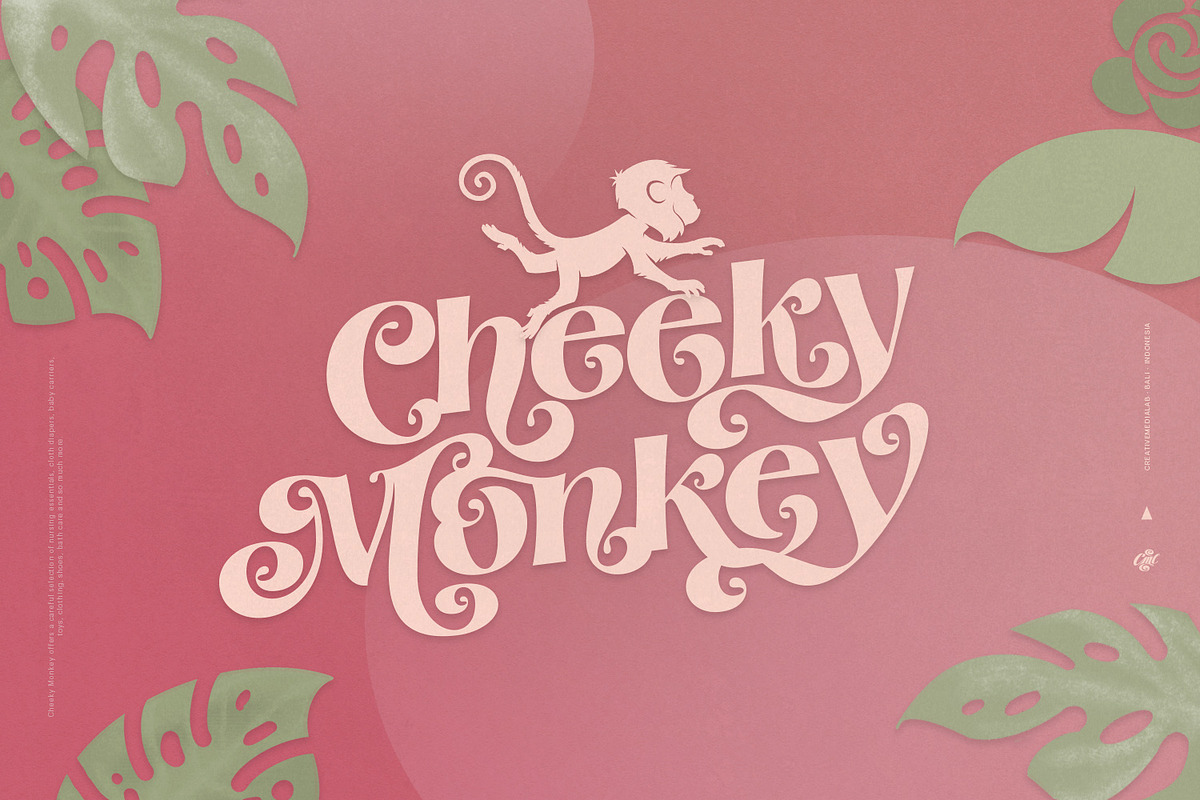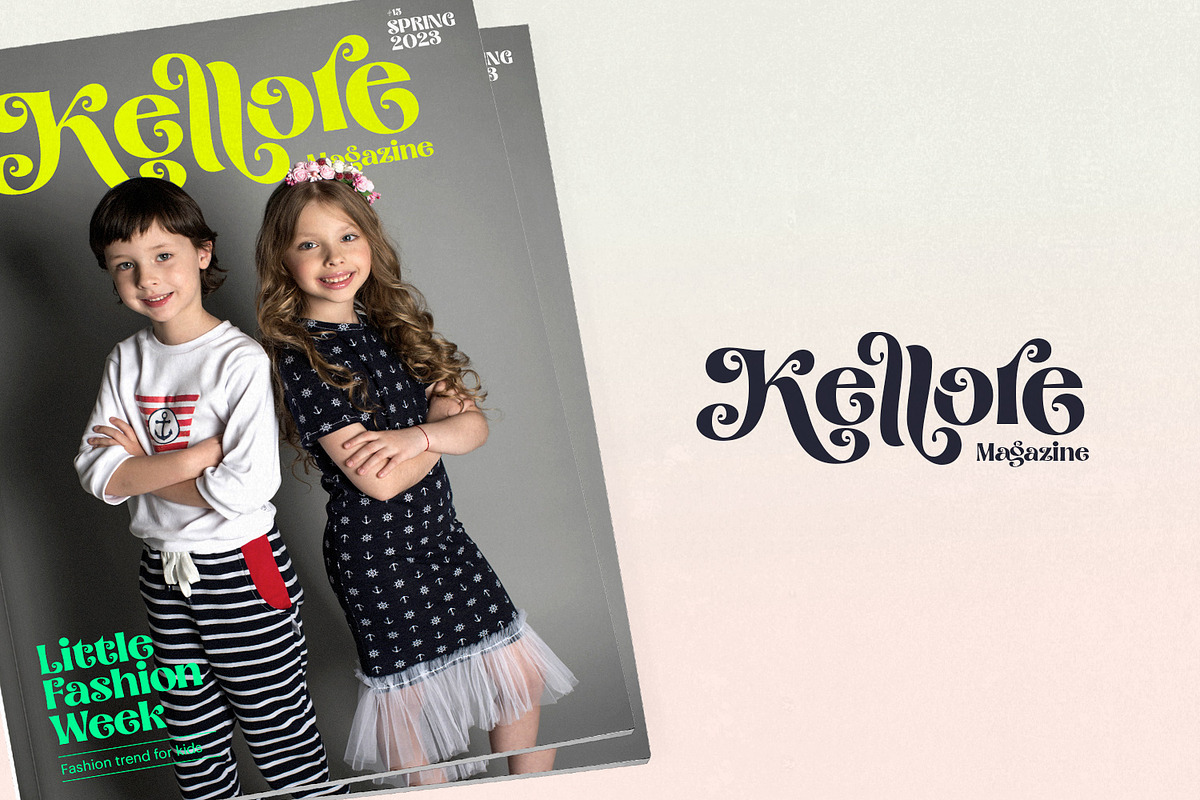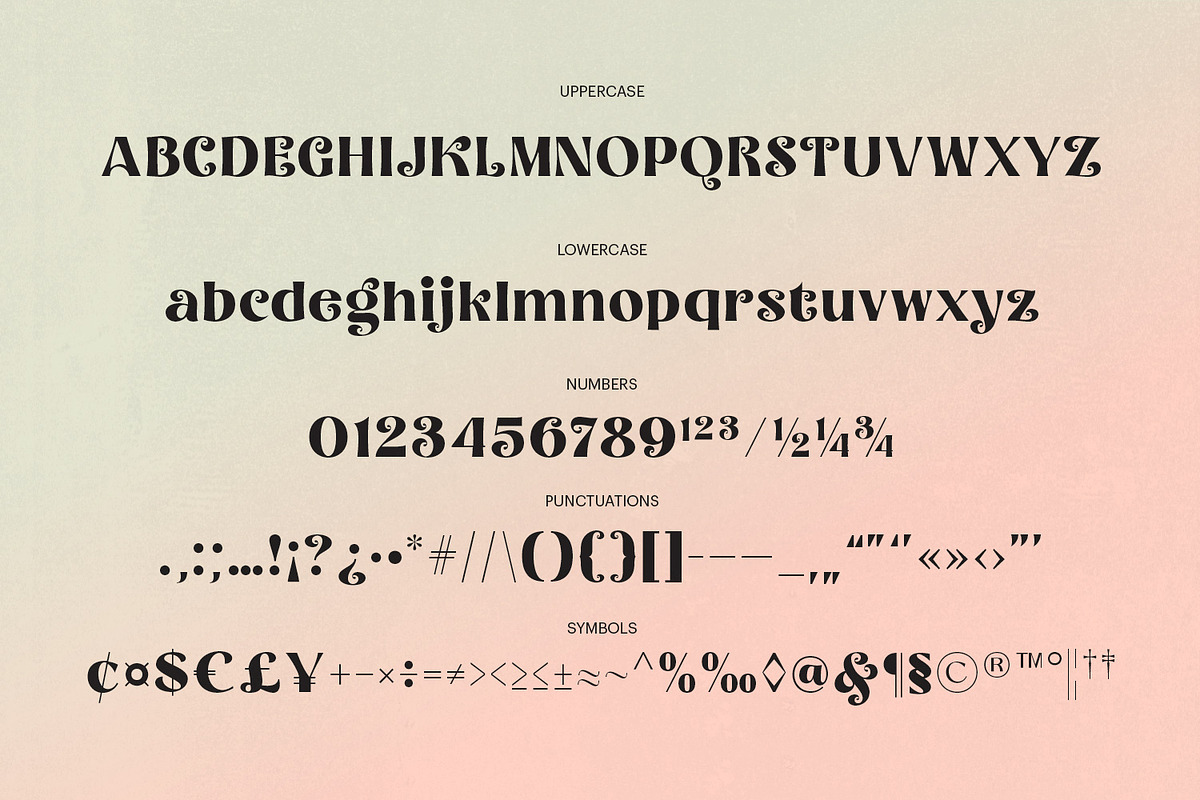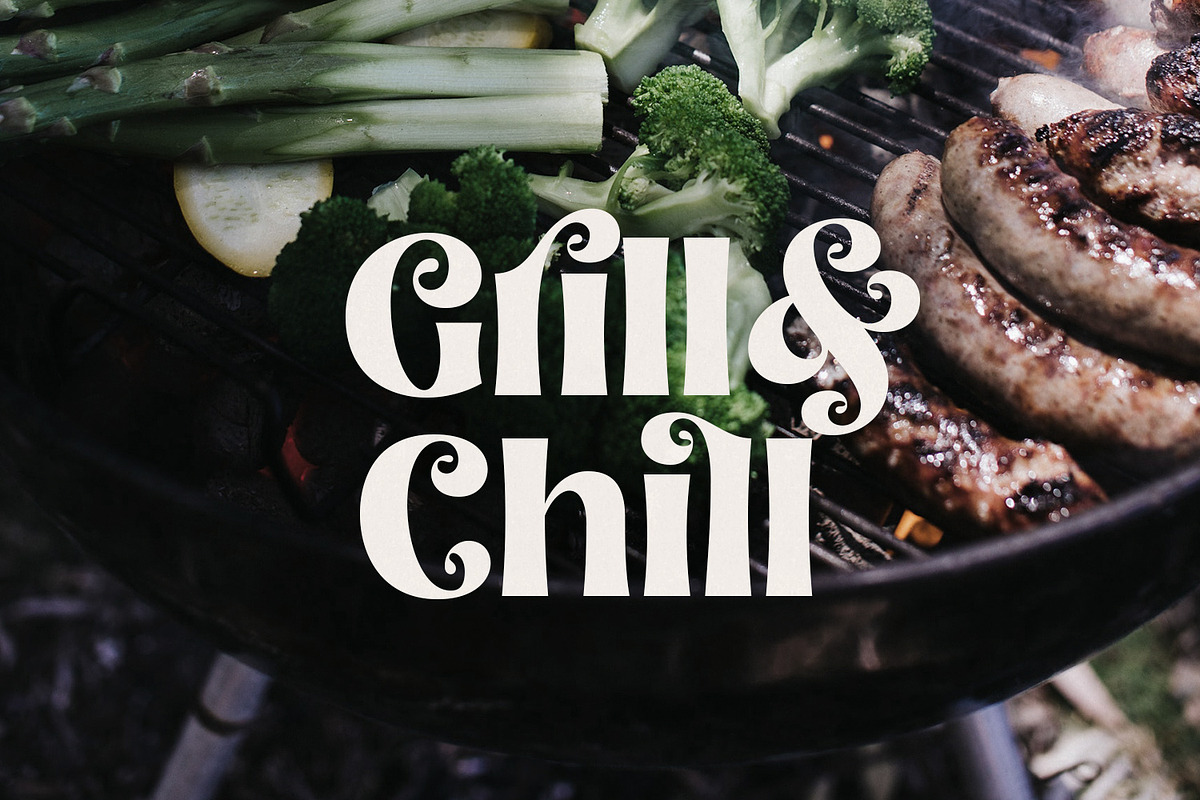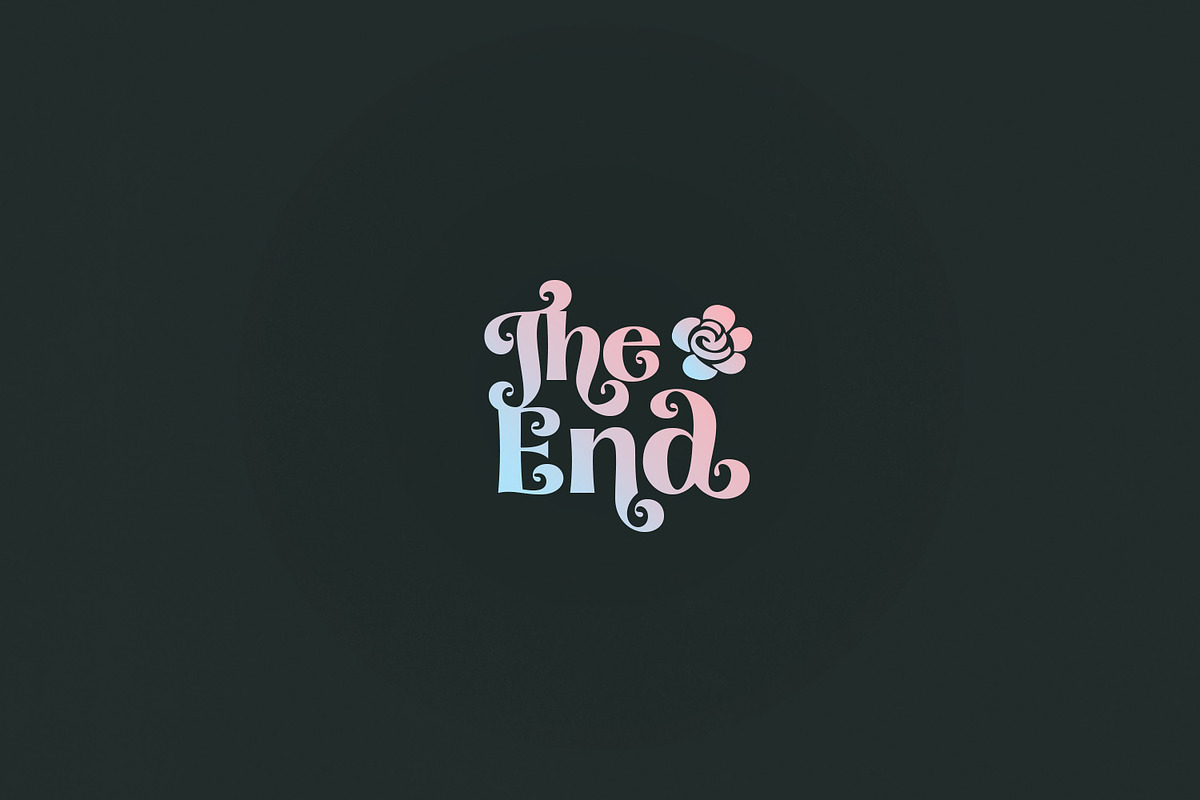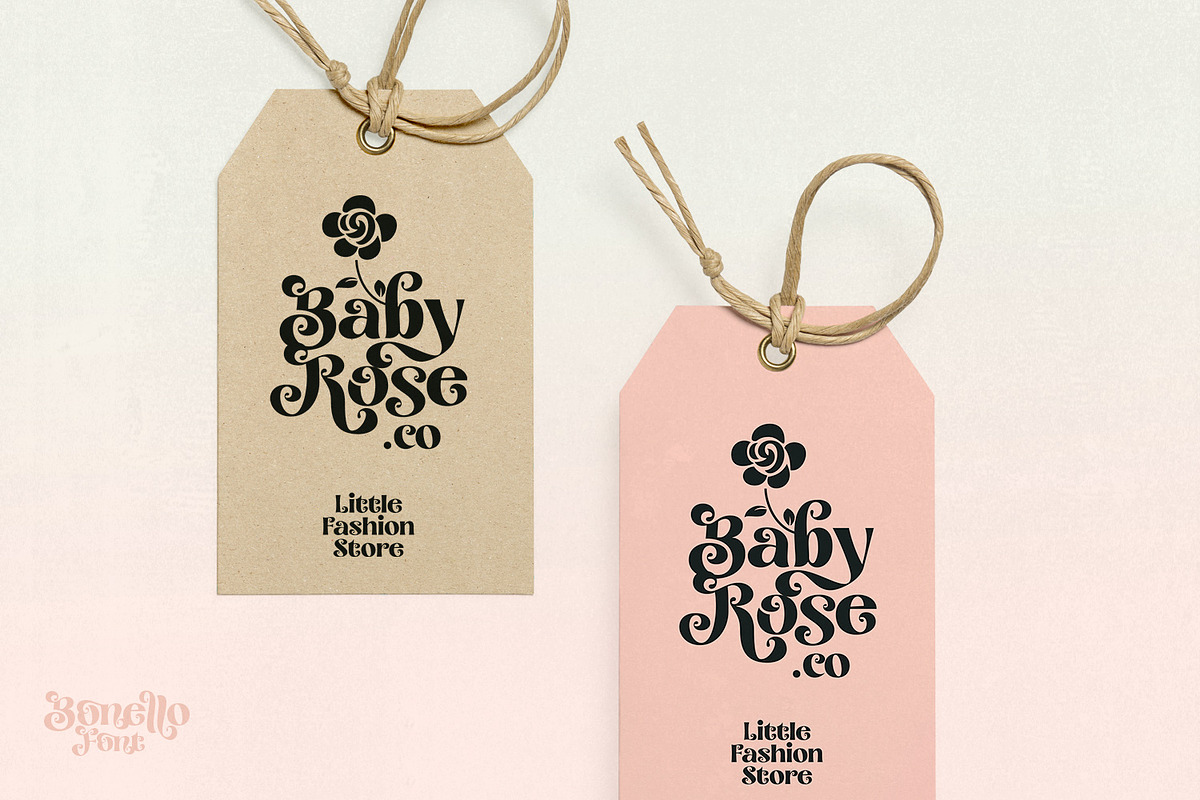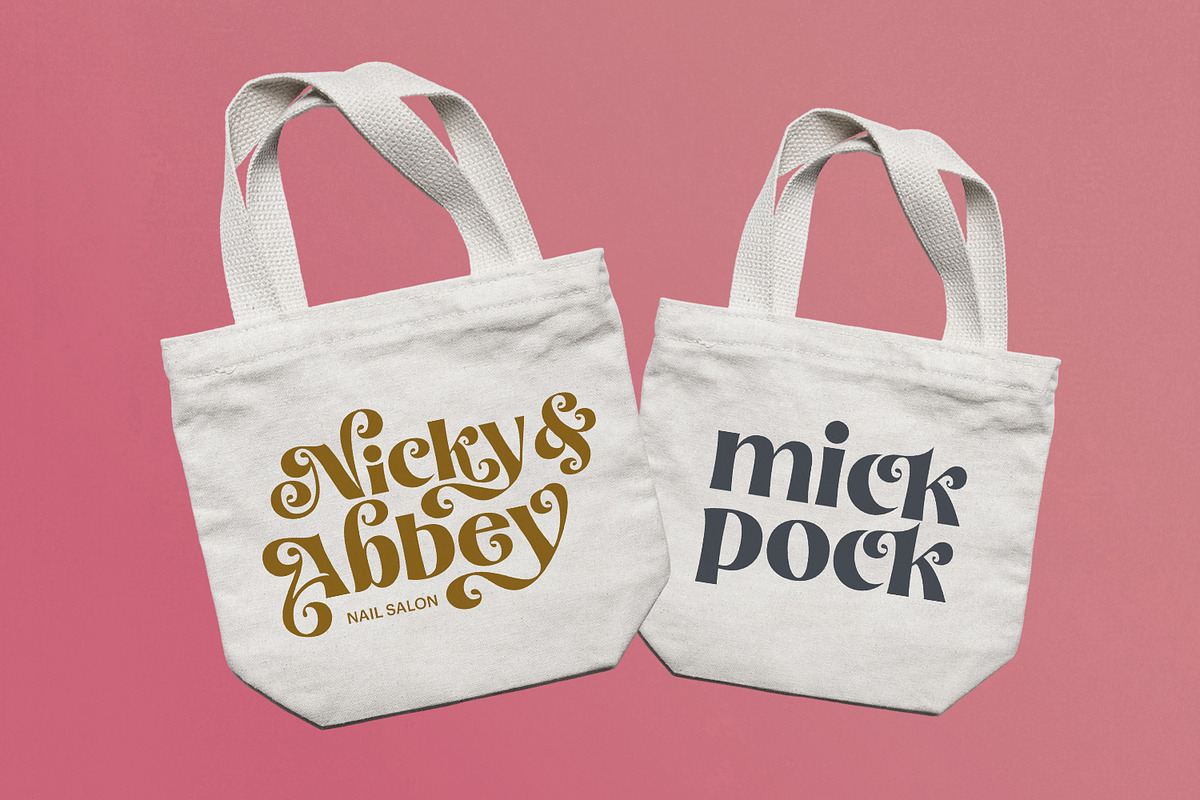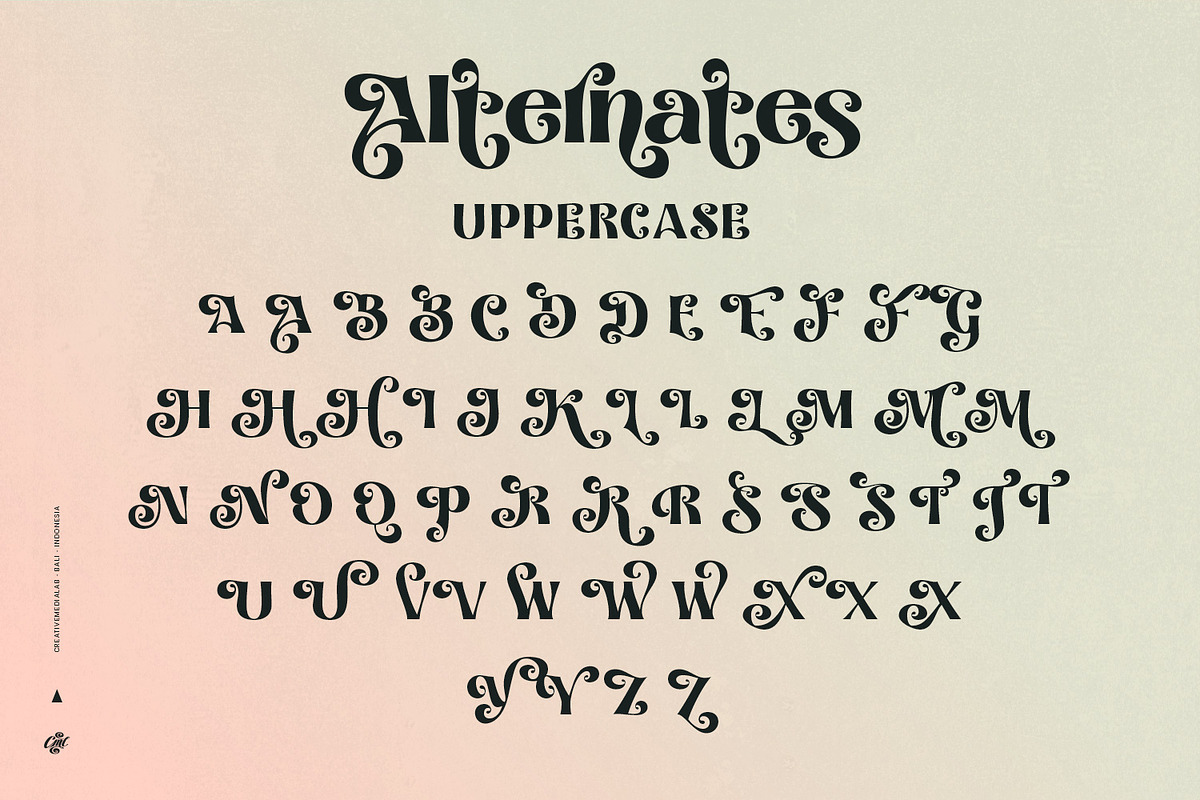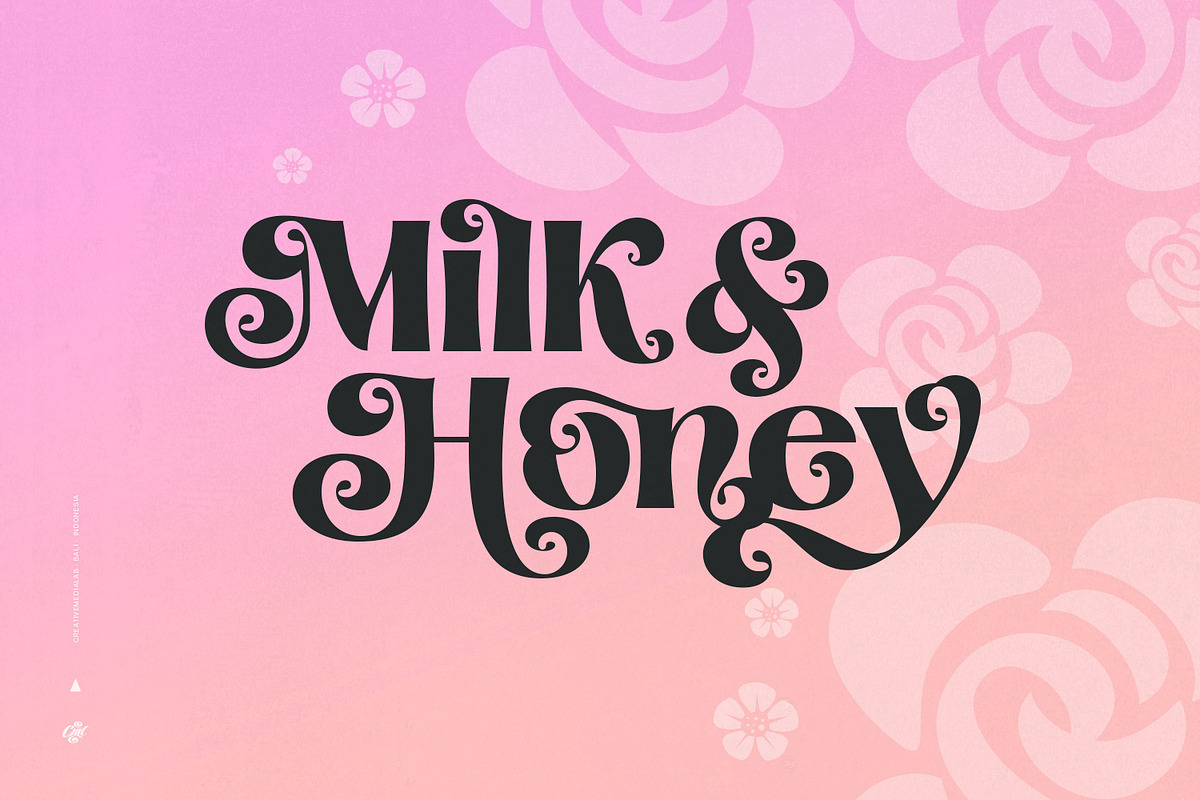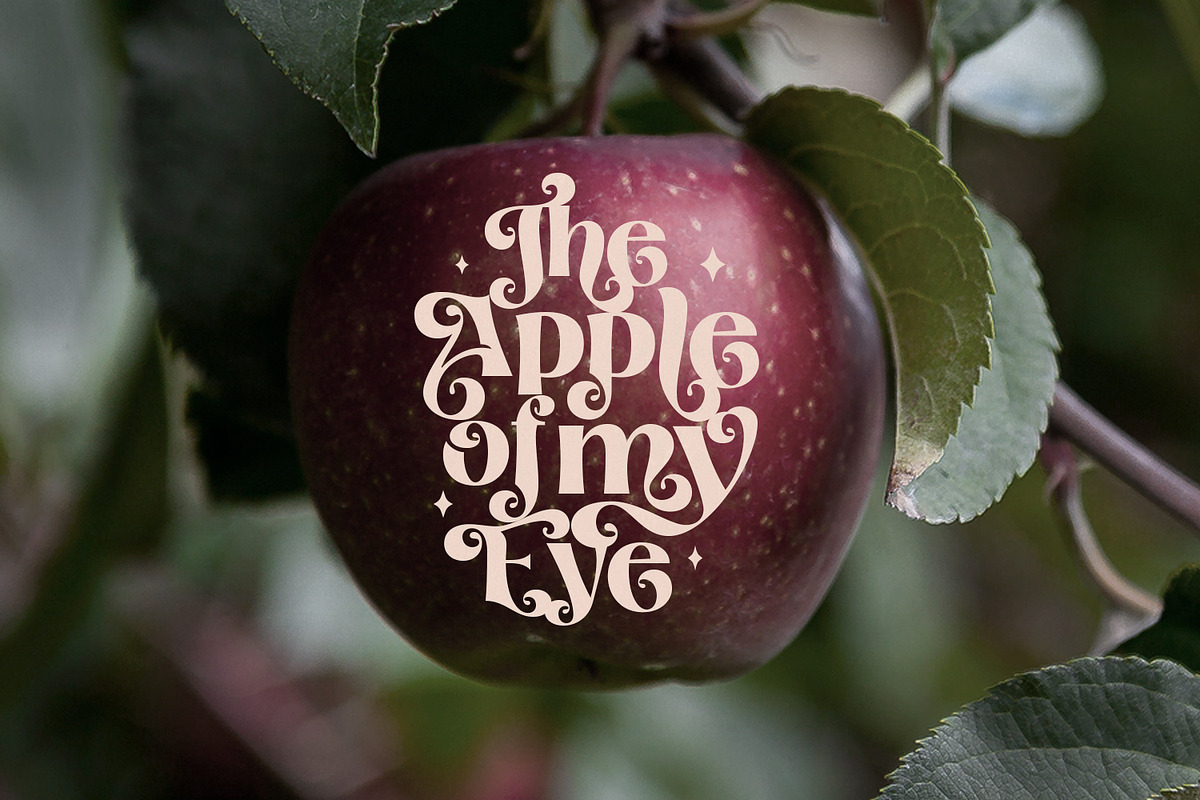
Bonello - Modern Display Font
Bonello font has more than 100 alternative characters and ligatures. This versatile and Playful display font is very suitable as a logo, title, or branding.
The curly shapes give your lettering idea a modern and beautiful look.